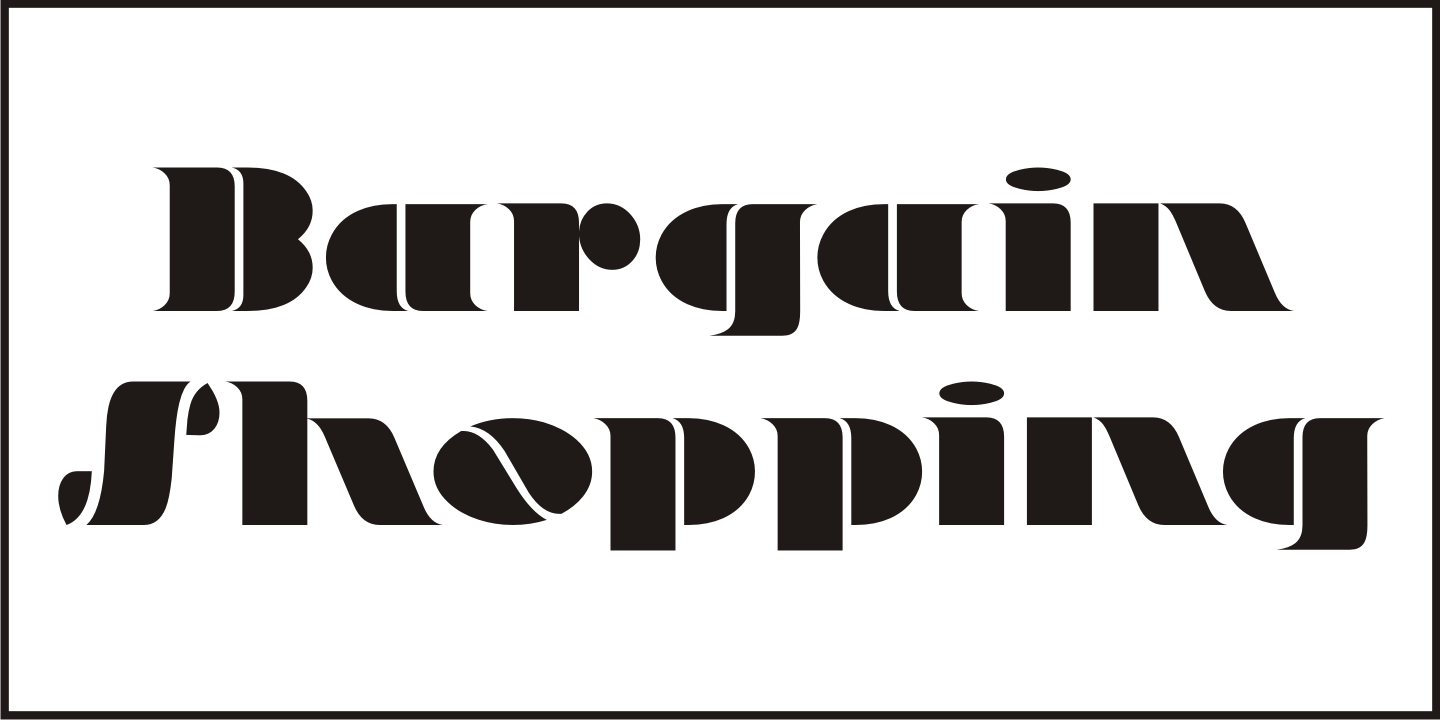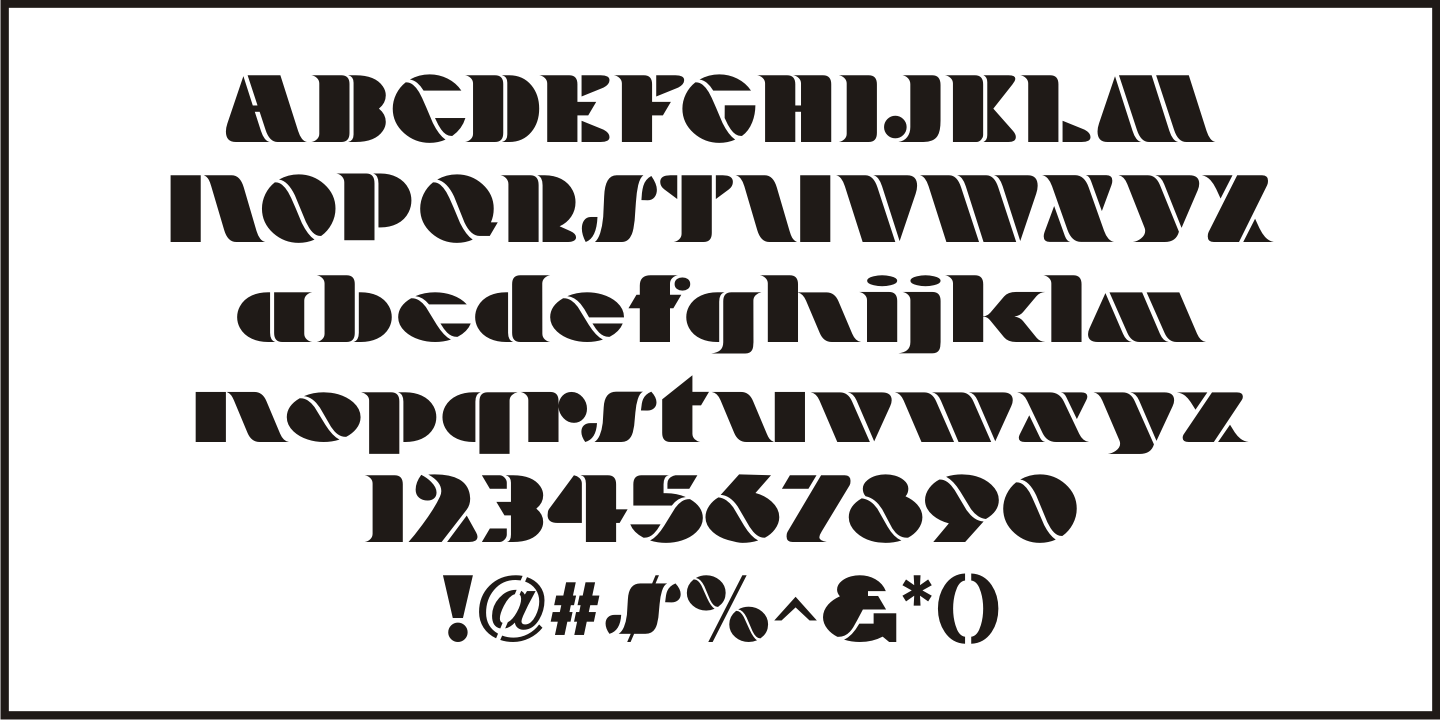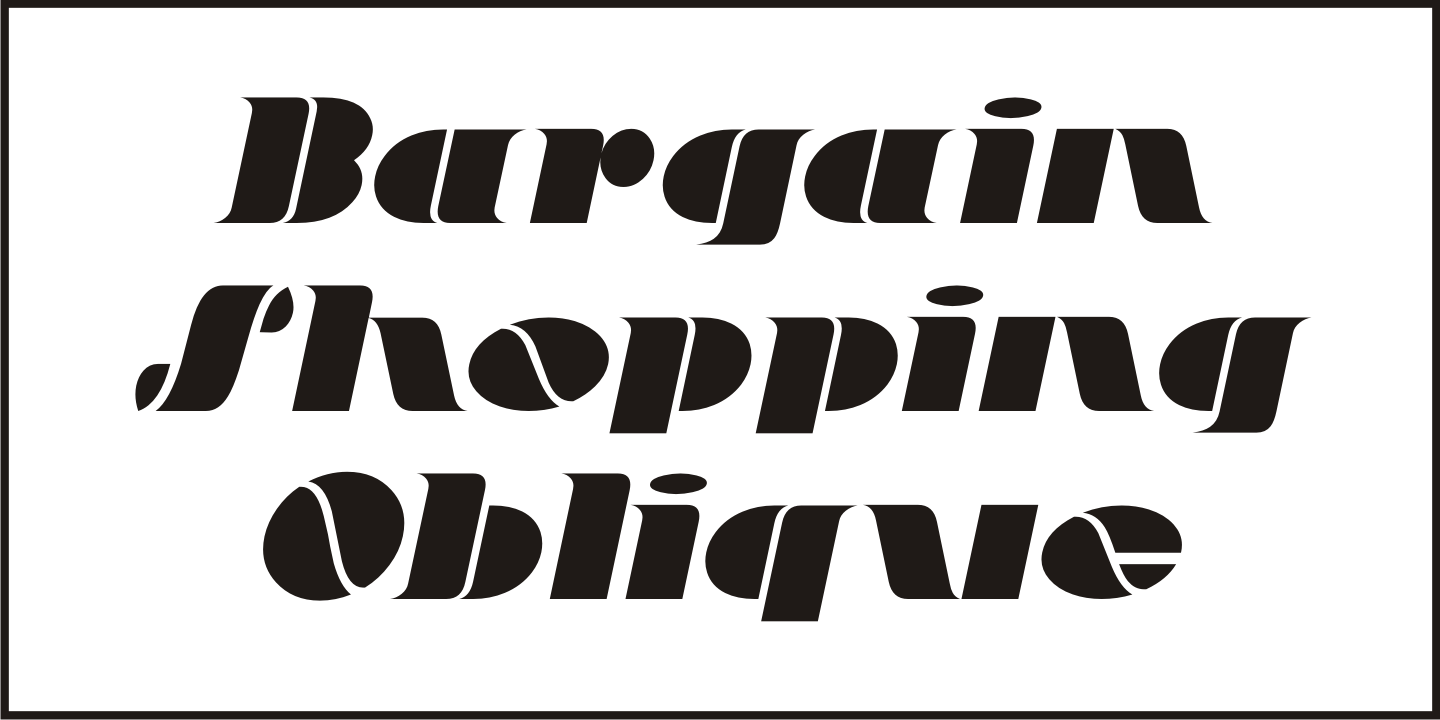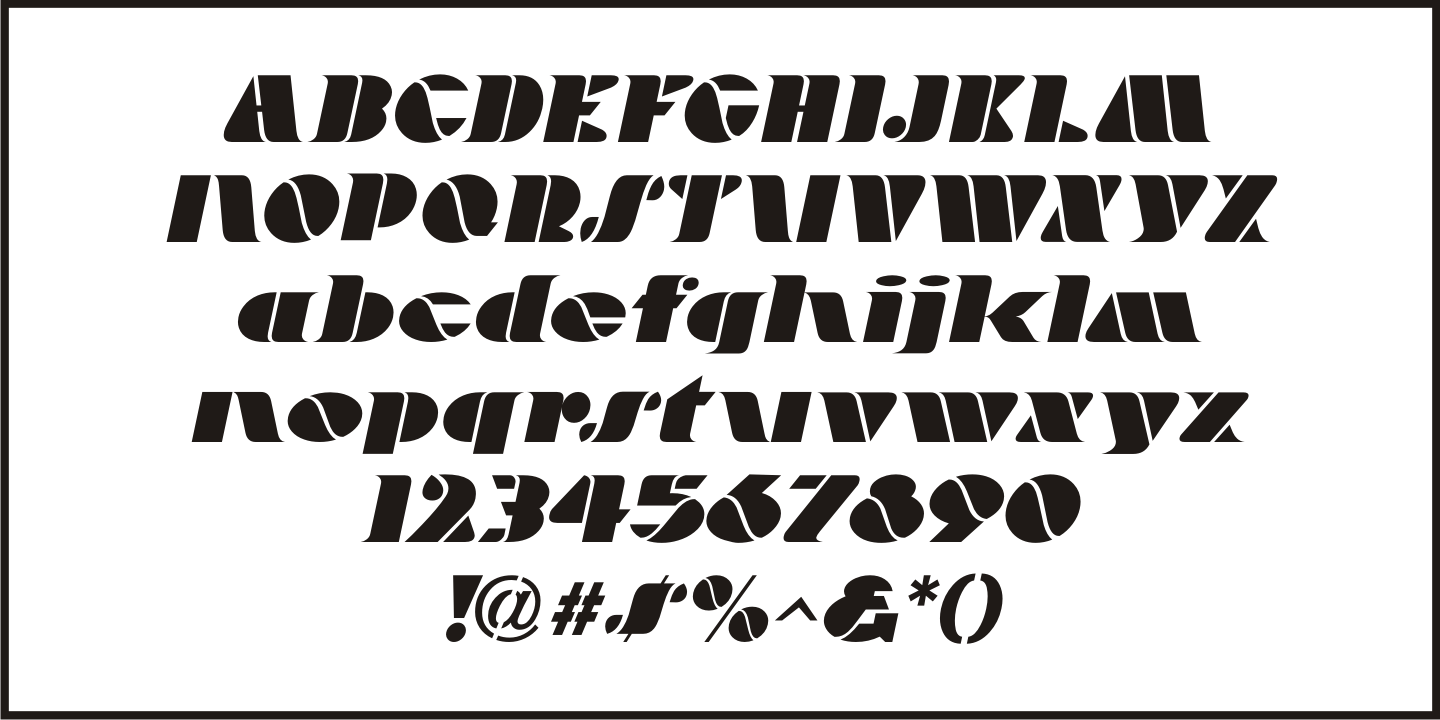
Bargain Shopping
F.W. Woolworth was once one of the giants of the variety store chains, along with the likes of Kress, S.S. Kresge, McCrory's, Neisner Brothers, Ben Franklin and others.
In 1960, the company brought out a new corporate logo with a type design harking back to the Art Deco style of the 1930s and 1940s.
A photo of one of their old store fronts (despite having only eight letters to work with) inspired the digital interpretation of the signage as Bargain Shopping JNL, which is available in both regular and oblique versions.
Bargain Shopping JNL Regular by Jeff Levine Fonts